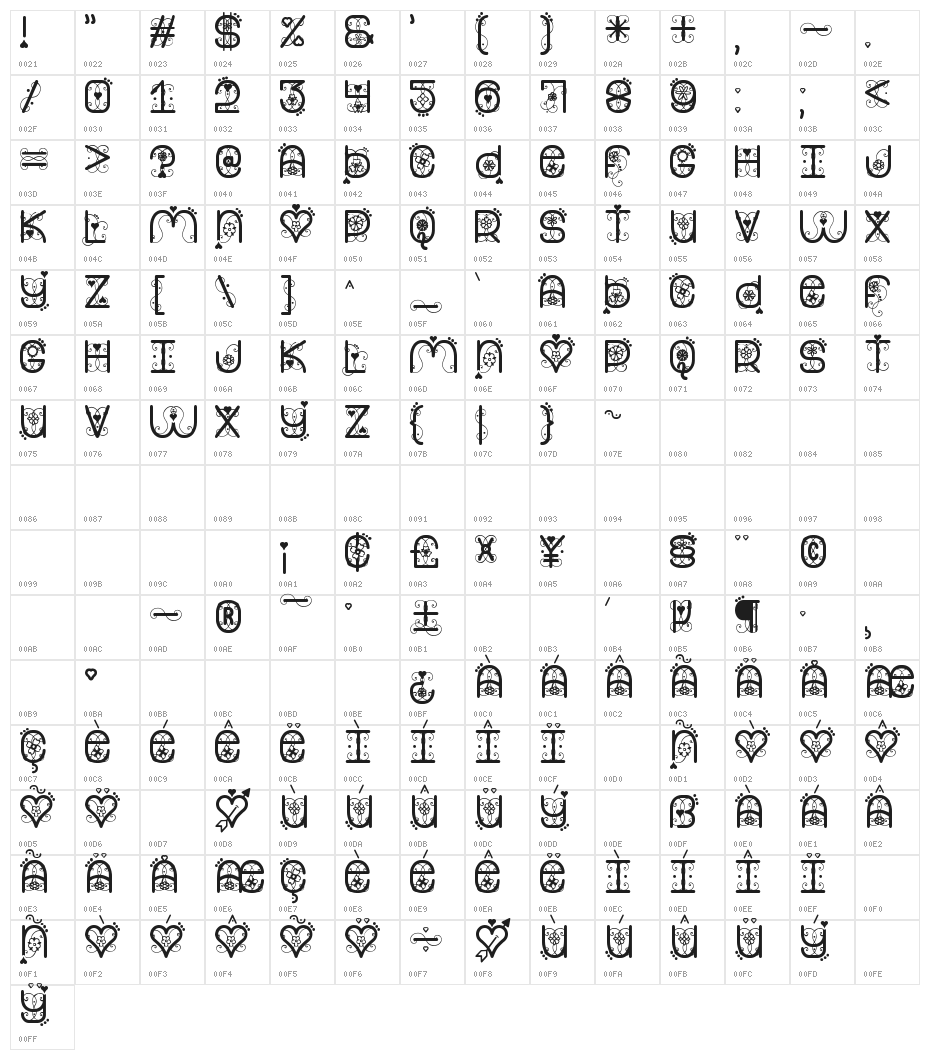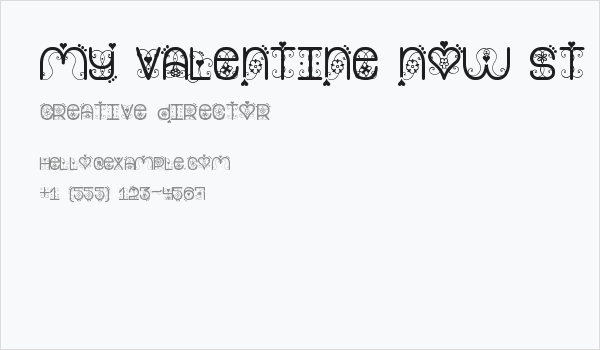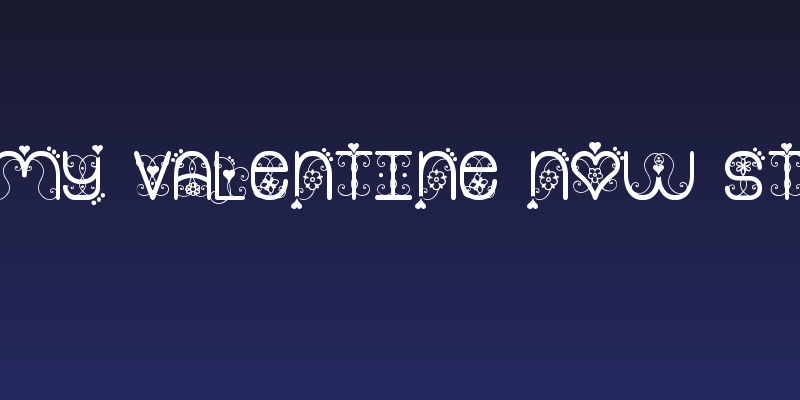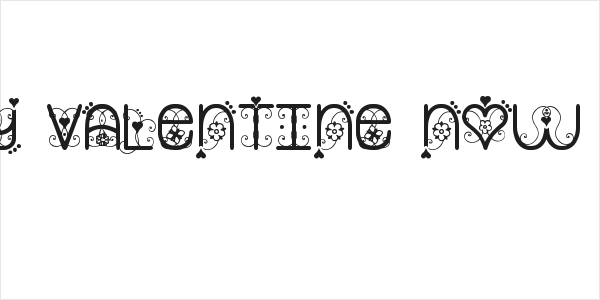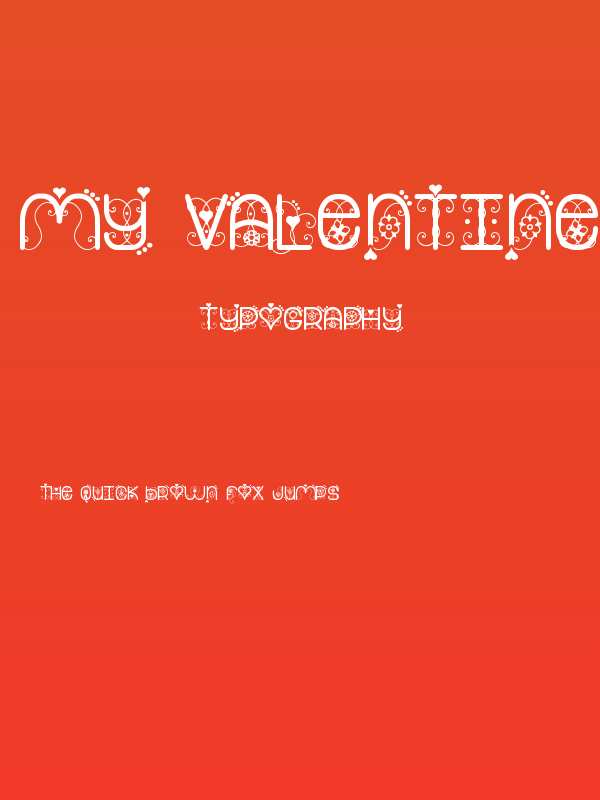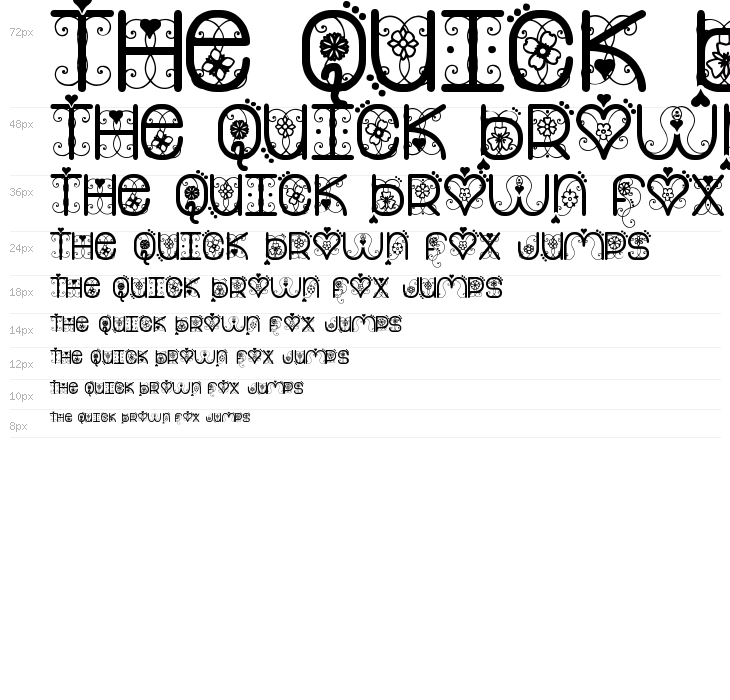
My Valentine Now St Font
My Valentine Now St Description
This font is a highly decorative and ornate typeface, featuring intricate floral and heart motifs integrated into each character. The uppercase and lowercase letters are embellished with swirling vines and delicate patterns, creating a romantic and whimsical aesthetic. The numbers and special characters are equally adorned, maintaining the theme of elegance and charm. The overall design is playful yet sophisticated, making it ideal for projects that require a touch of fantasy and creativity. The font's unique style is perfect for capturing attention and conveying a sense of celebration and joy.
| Use Case | Headlines, Logos, Decorative text |
| Proposed Projects | Wedding invitations, Valentine's Day cards, romantic event posters, decorative signage, and themed party invitations. |